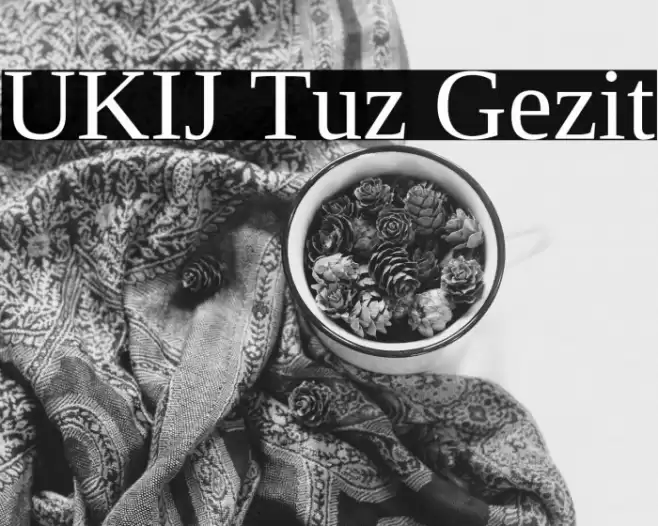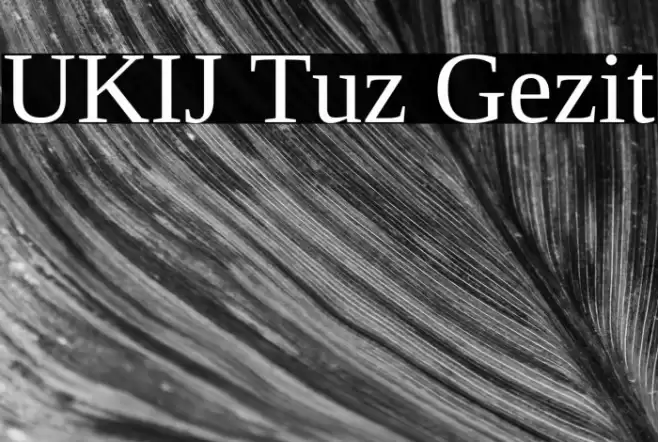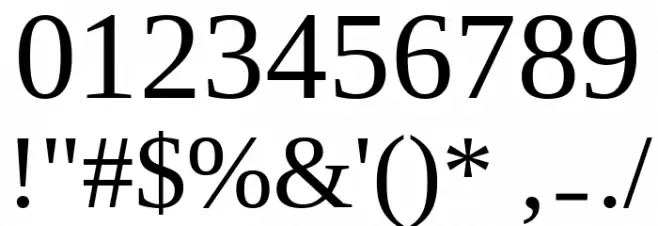
UKIJ Tuz Gezit Font
UKIJ Tuz Gezit Description
This font exhibits a classic serif style with a strong presence and refined elegance. The characters are well-proportioned, featuring distinct serifs that add a touch of sophistication. The uppercase letters are bold and commanding, while the lowercase letters maintain a consistent flow with slightly rounded edges. The numerals are clear and legible, making them suitable for various applications. Special characters are designed with the same attention to detail, ensuring uniformity across the typeface. The overall design is versatile, making it ideal for both print and digital media.
A classic serif font with elegant proportions and refined serifs from Serif fonts.
- Proposed Projects: Ideal for editorial design, book covers, formal invitations, and branding projects.
- Overall Style: Classic